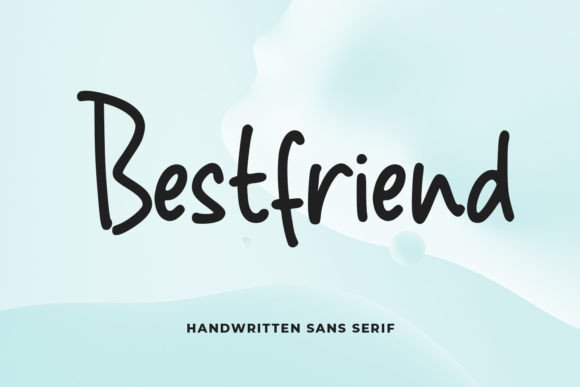
The Bestfriend Font: A Charming Handwritten Delight for Your Designs
I’ll never forget the morning I stumbled upon the Bestfriend font while working on a custom invitation project for a friend’s wedding. I had been searching for the perfect font for hours, trying to find something that captured the warmth and coziness of the occasion. As soon as I saw Bestfriend, I knew I had found the one. Its gentle curves and friendly demeanor instantly evoked the feeling of a handwritten note on a sunny morning.
As a designer, I’m always on the lookout for fonts that can add a personal touch to my projects. Bestfriend has quickly become one of my go-tos, and here’s why:
• ✨ Effortless charm: Bestfriend has a way of making every project feel more approachable and friendly.
• ✅ Versatility: It works beautifully for invitations, greeting cards, and even cozy branding projects.
• 💕 Emotional connection: The font’s warm and inviting personality helps create an emotional connection with your audience.
Of course, no font is perfect, and Bestfriend has a few quirks to keep in mind:
• 🤔 Limited formal use: Bestfriend is best suited for informal projects; it may not be the best choice for more formal or corporate designs.
• ⚠️ Glyph limitations: While the font has a range of OpenType features, it’s not as extensive as some other fonts on the market.
The Story Behind Bestfriend
Bestfriend was designed by a talented type designer who wanted to create a font that captured the warmth and friendliness of handwritten notes. The designer drew inspiration from classic handwritten fonts, infusing them with a modern twist to create a unique and charming typeface.
Font Name Bestfriend Font
Author Abodaniel
What type of projects is Bestfriend best suited for? Bestfriend is perfect for informal projects like invitations, greeting cards, and cozy branding.
Does Bestfriend have any special features? Yes, Bestfriend has a range of OpenType features, including glyphs and stylistic alternates.